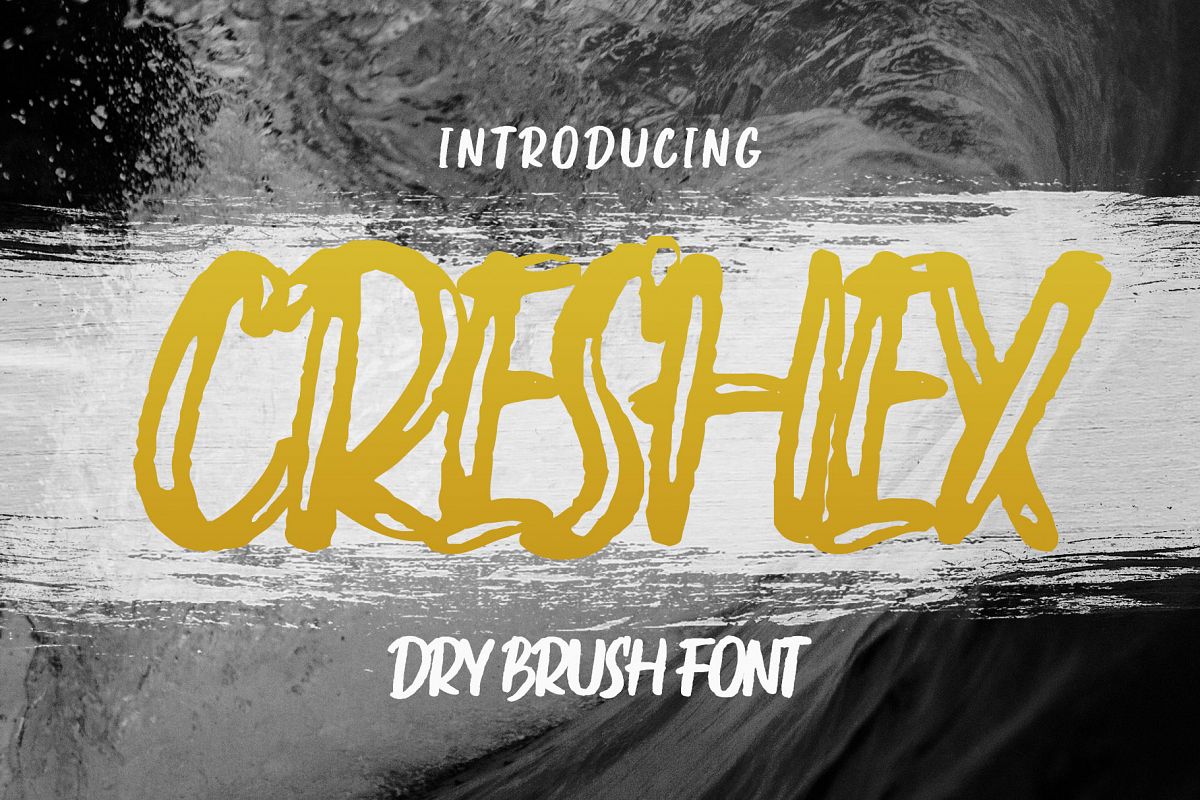
Creshex Dry Brush Font
Creshex Dry Brush Font is a bold display font created using a brush and forms a font texture until it looks strong. Suitable for logo, branding, book cover, clothing, product packaging, quotes and more